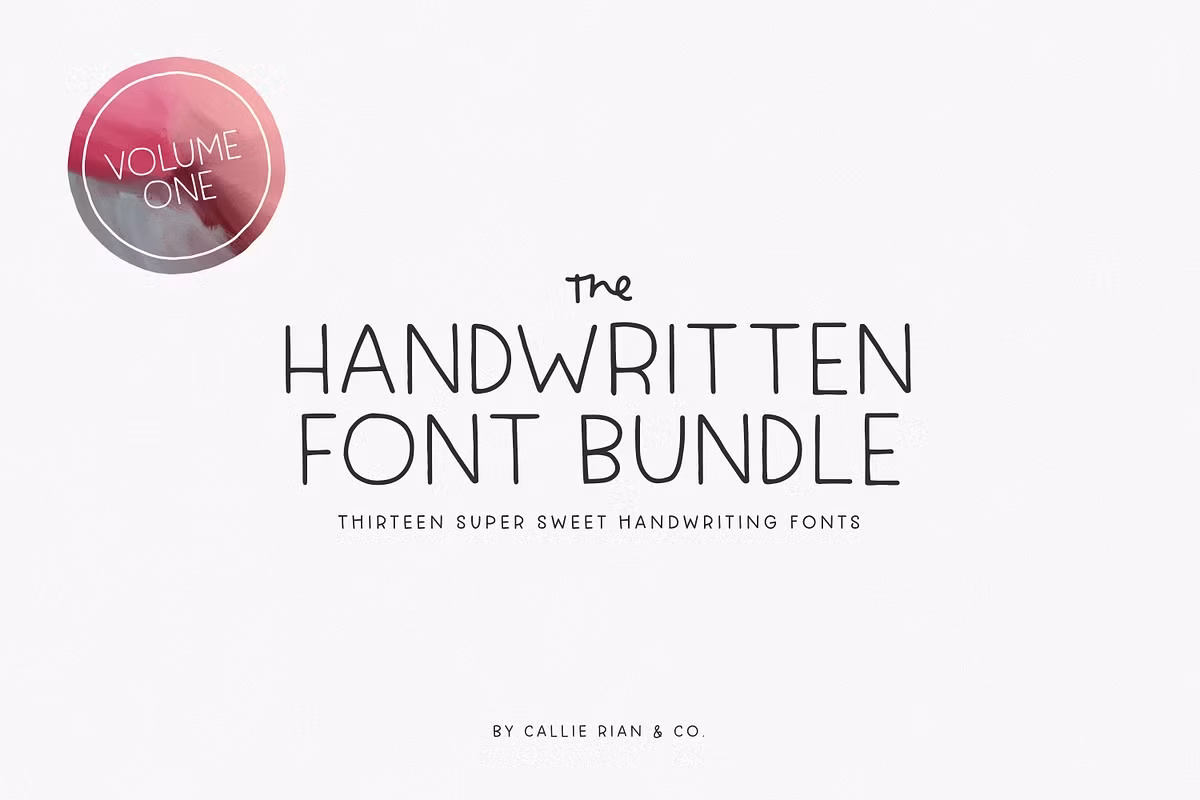
The Handwritten Font Bundle Vol. 1 Free Download
Add a personal touch to your designs with The Handwritten Font Bundle Vol. 1 Free Download — a collection of unique and stylish handwritten fonts perfect for a variety of projects. From invitations to branding, social media graphics, logos, and more, this bundle offers a wide range of fonts that bring a natural, authentic look to your typography.
The bundle includes multiple fonts with various styles, from elegant scripts to bold handwritten designs, each crafted with care to give your projects a charming, personal feel. It includes uppercase and lowercase letters, numerals, punctuation, and multilingual support, offering flexibility for a wide range of creative applications.